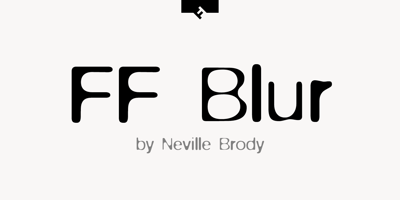
FF Blur
FF Blur font
FF Blur Font Family was designed by Neville Brody and published by FontFont. FF Blur contains 3 styles and family package options. British type designer Neville Brody created this display FontFont in 1991. The family contains 3 weights: Light, Medium, and Bold and is ideally suited for advertising and packaging, festive occasions, editorial and publishing, logo, branding and creative industries as well as poster and billboards. FF Blur provides advanced typographical support with features such as ligatures, alternate characters, and case-sensitive forms. It comes with tabular lining and proportional lining figures. In 2011, FF Blur was added to the MoMA Architecture and Design Collection in New York.